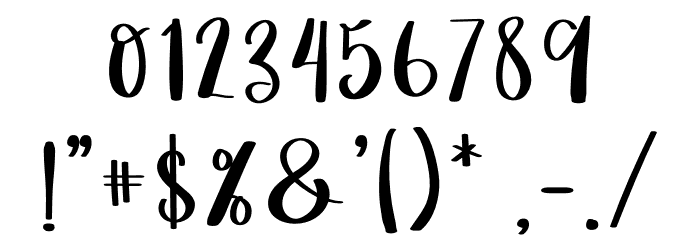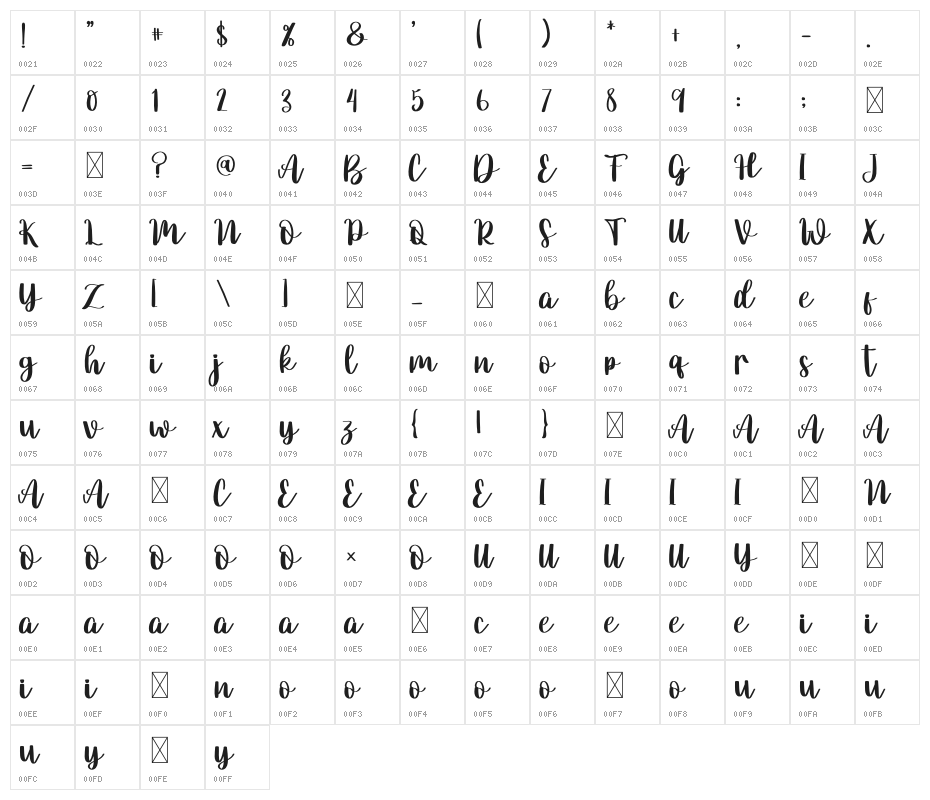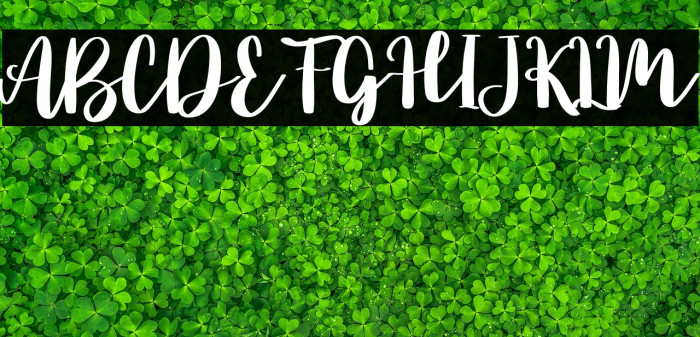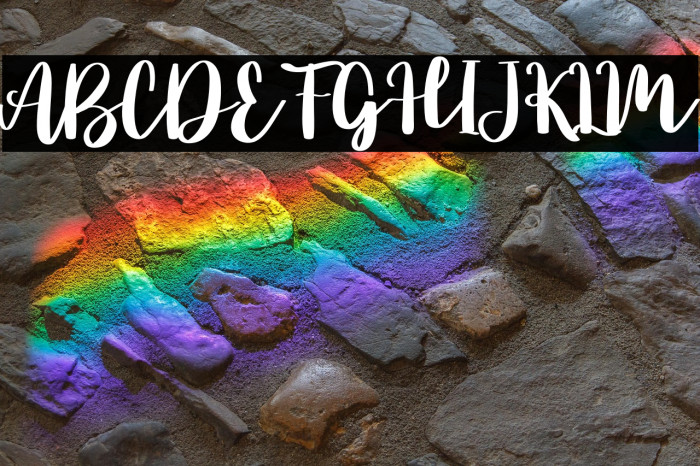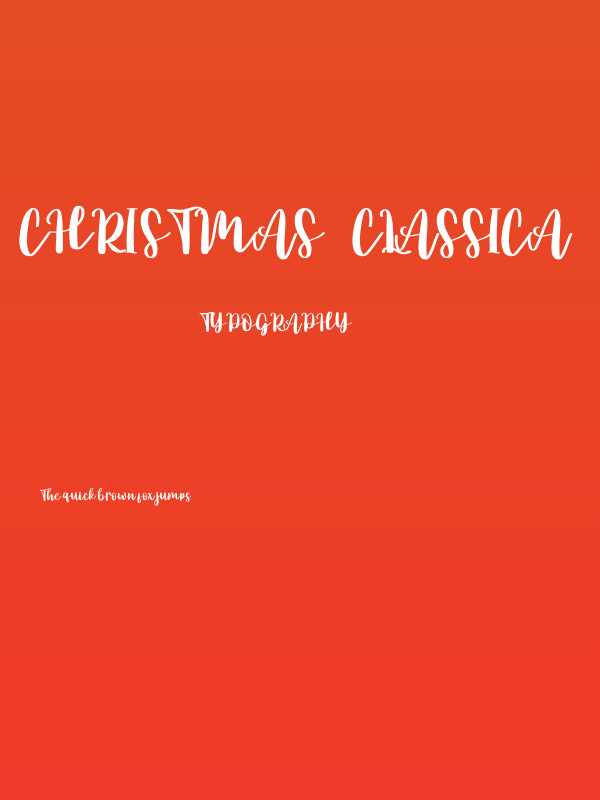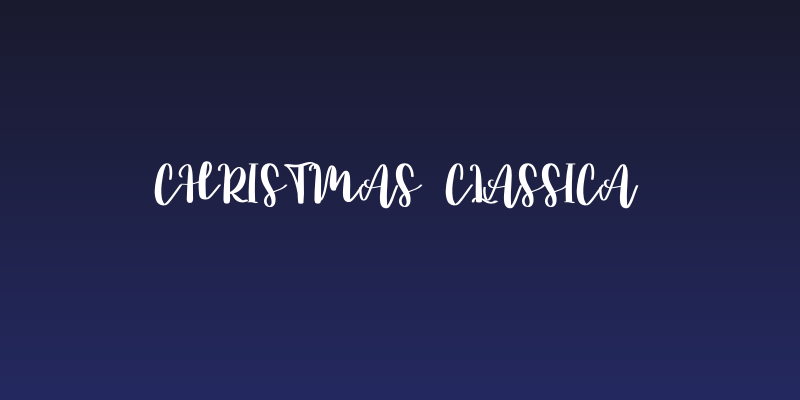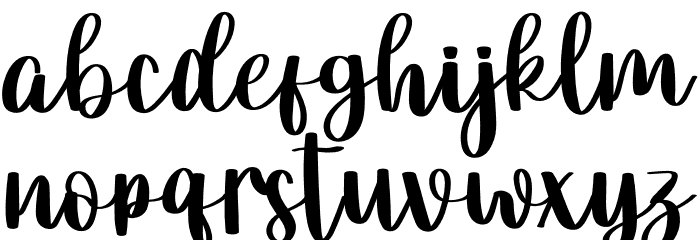
Christmas Classica Font
Christmas Classica Description
This font exudes a festive and elegant charm, characterized by its flowing, cursive style that mimics the fluidity of handwritten script. The uppercase letters are bold and sweeping, with dramatic loops and flourishes that add a touch of sophistication. The lowercase letters maintain the same fluidity, with a slightly more compact form, making them highly legible while retaining their decorative appeal. The numerals are consistent with the overall style, featuring slight curves and a playful touch. Special characters are thoughtfully designed to match the whimsical yet refined aesthetic, making this font perfect for creating a warm and inviting atmosphere.